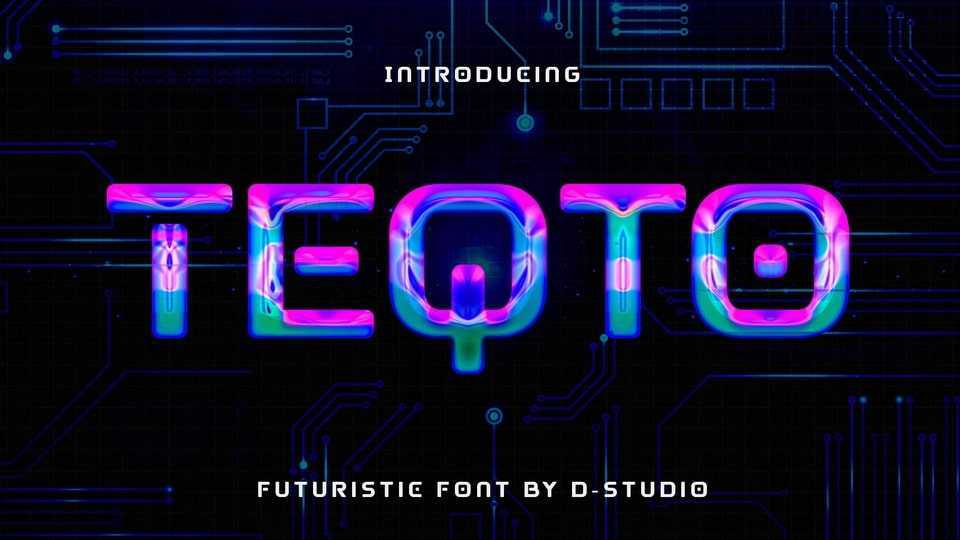
Download Teqto font, a rounded futuristic typeface, offering all the basic styles you will need for a successful project. Teqto font can easily apply to your favorite designs that require a sci-fi touch.
Designer: Drizy Studio